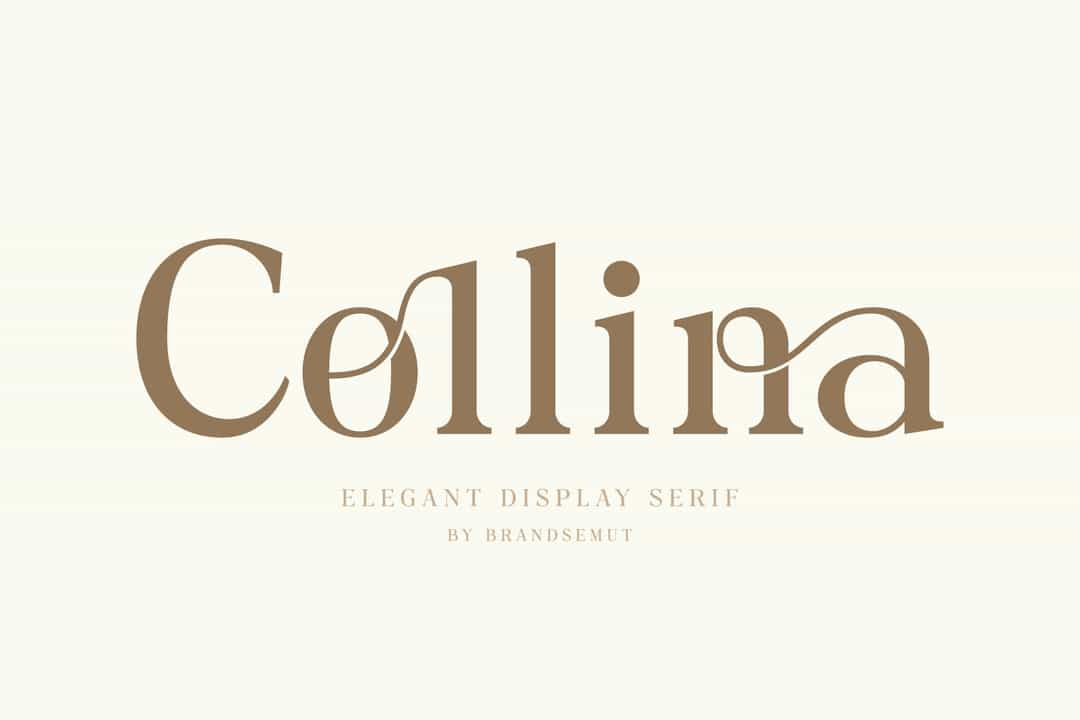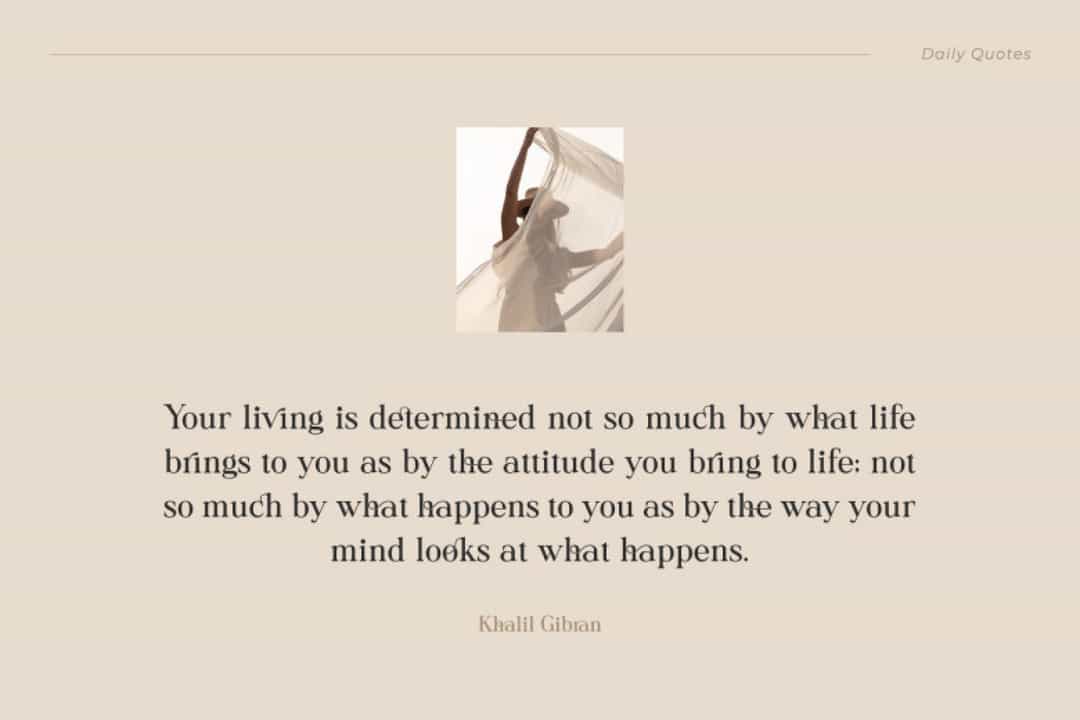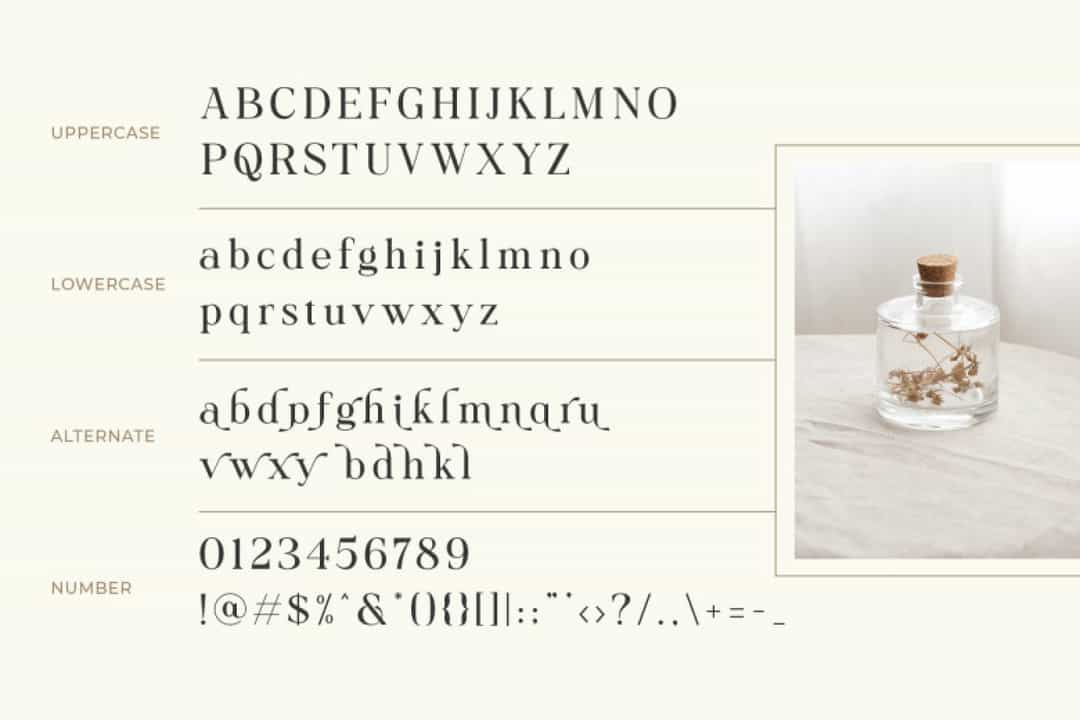
Collina is an elegant yet modern serif font. Ideal for invitations, logos, branding and stationery purposes as well as wedding themes or social media posts!